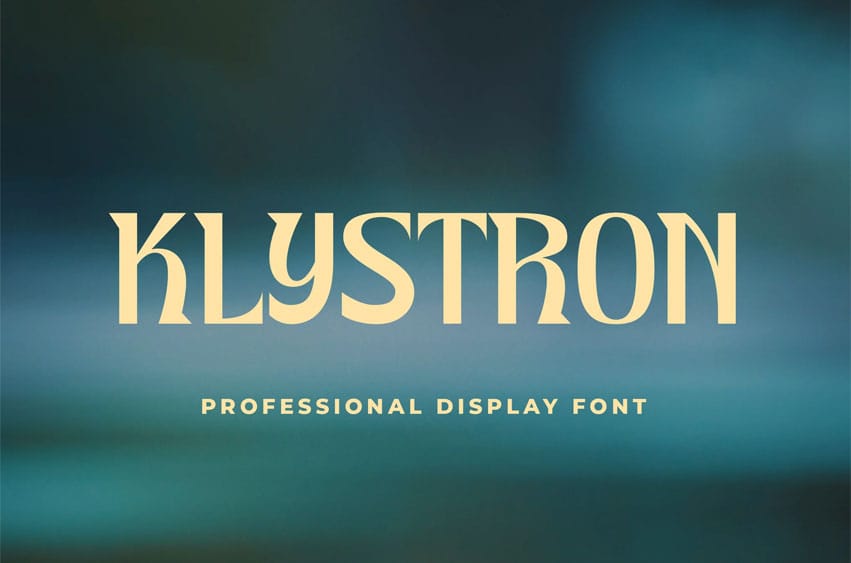
Klystron Font is an elegant, high-contrast display serif designed to bring a sense of timeless sophistication to modern creative projects. Its tall letterforms and refined strokes offer a perfect balance between classic editorial style and contemporary professional branding.
Designed with high-end aesthetics in mind, Klystron excels in boutique contexts, making it an ideal choice for fashion magazines, exclusive packaging, and sophisticated visual identities. The sharp contrast between its thick and thin lines ensures a commanding presence in headlines, titles, and logo marks.